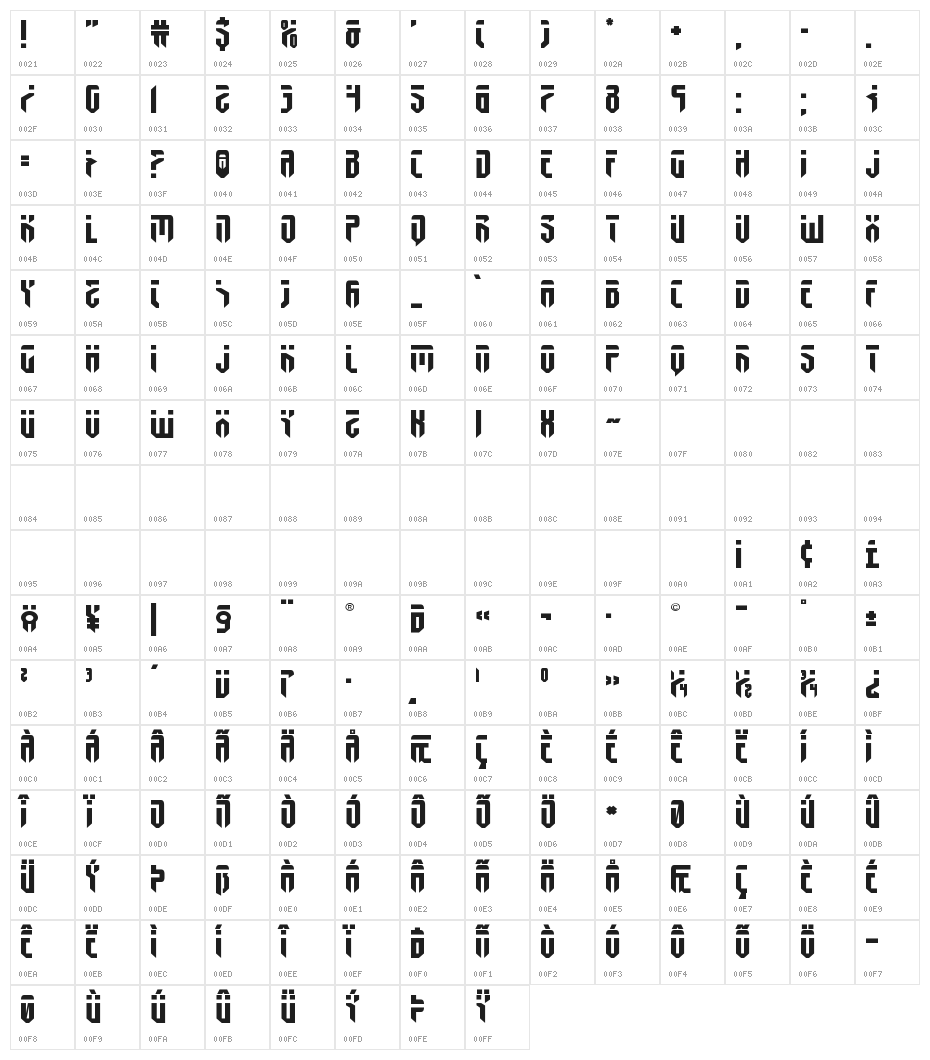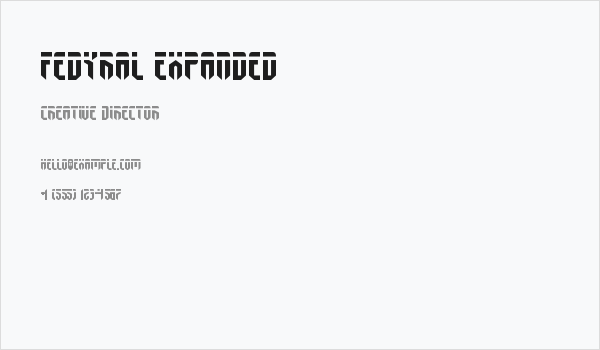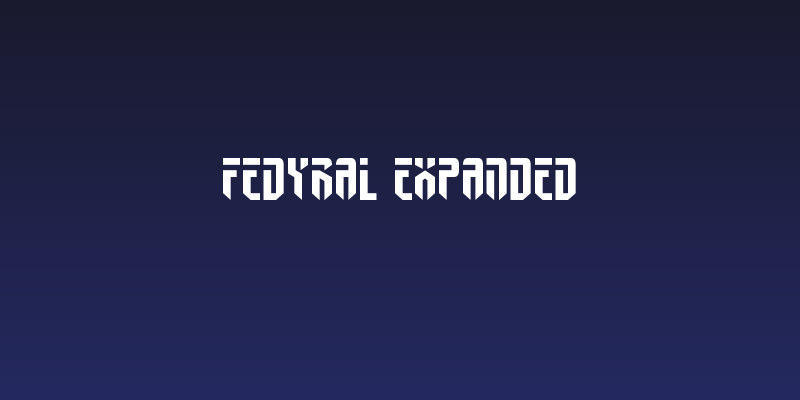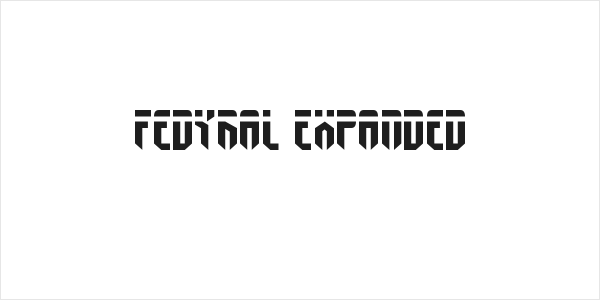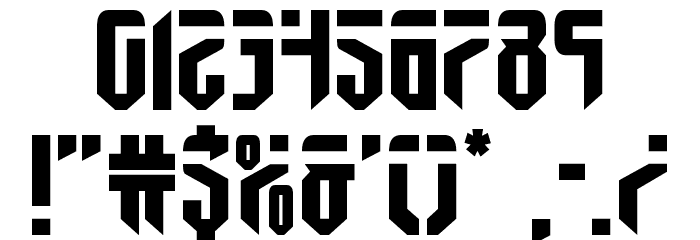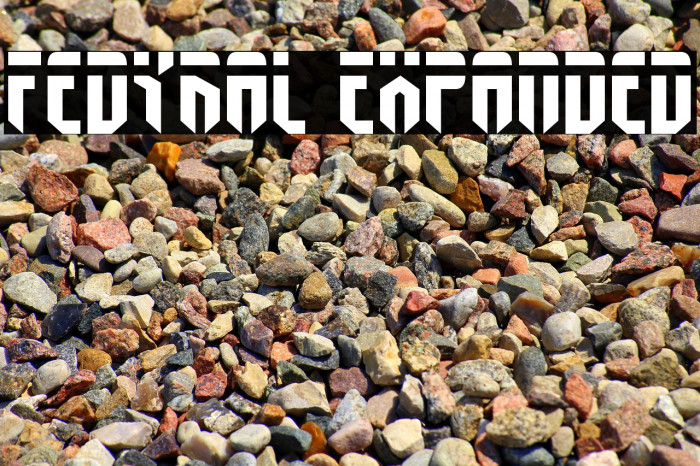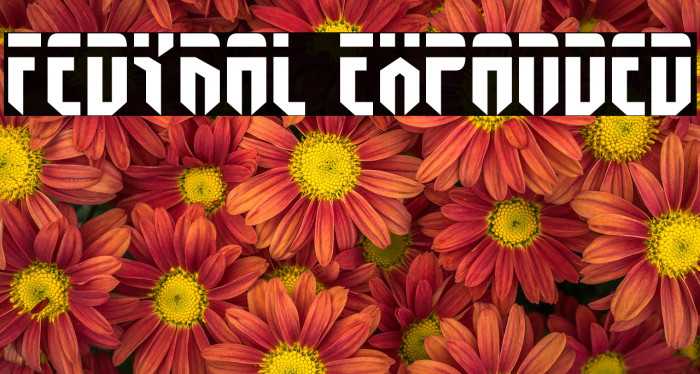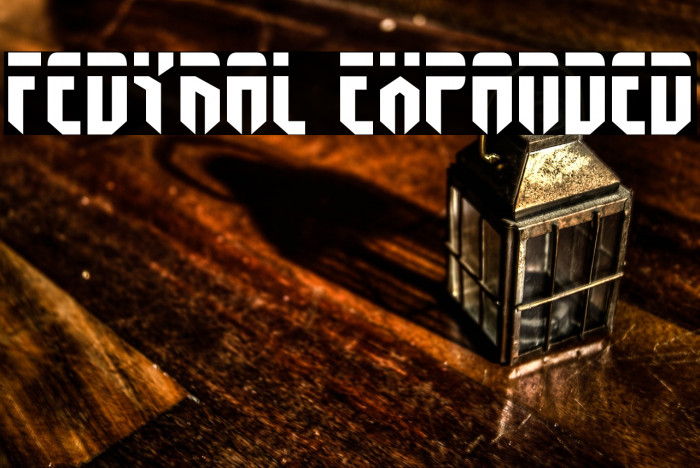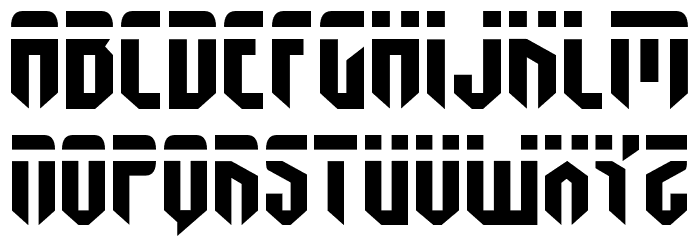
Fedyral Expanded Font
Fedyral Expanded Description
This font features a bold and geometric design with a futuristic flair. The characters are constructed with sharp angles and straight lines, giving them a distinct, edgy appearance. The uppercase letters are particularly striking, with a blocky, almost stencil-like quality. The lowercase letters maintain the same geometric style, ensuring consistency across the typeface. Numbers and special characters are equally bold and angular, making them stand out. The overall design is modern and eye-catching, suitable for projects that require a strong visual impact.